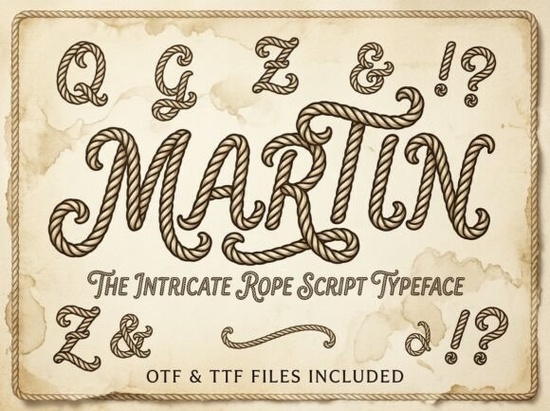
If you're looking for a display font that brings a tactile, hand-crafted feel to your designs, Martin Font stands out as a thoughtful choice. It’s not just another script each letter feels like it was carved by hand from weathered rope, giving your projects a sense of authenticity and depth. Whether you're working on coastal branding, rustic event invites, or themed apparel, Martin adds a layer of storytelling through its texture and flow.
What makes Martin Font unique?
Martin blends the rough charm of maritime life with the grace of traditional cursive writing. The twisted strokes mimic real rope, making it ideal for themes that evoke adventure, seafaring, or frontier spirit. Unlike many fonts that rely on digital polish, Martin embraces imperfections subtle variations in line weight and slight irregularities that make it feel lived-in and genuine.
It’s especially effective when used in bold headlines, logos, or packaging where you want immediate visual impact. The font works well at larger sizes, but still holds character at smaller dimensions, making it versatile across print and digital formats.
Best uses for Martin Font in real projects
- Nautical branding: Perfect for fishing charters, boat rental services, or seaside boutiques looking to convey a rugged yet refined identity.
- Seafood restaurant logos: Adds a warm, artisanal touch to menus, signage, or takeout boxes without feeling cliché.
- Rustic wedding stationery: Ideal for invitations, place cards, or thank-you notes with a western or coastal theme.
- Pirate-themed book covers or merch: Brings a believable, handcrafted look to fantasy or adventure titles.
- Beachwear labels: Great for small-batch clothing lines that value craftsmanship and story.
How does Martin fit into broader design trends?
Fonts with texture and handmade qualities are trending in design circles, especially among creators focused on sustainability, storytelling, and authenticity. Martin aligns with this shift it doesn’t just look good, it feels meaningful. It’s part of a growing movement toward designs that reflect real-world materials and human effort.
For designers exploring display fonts with personality, Martin offers a strong alternative to overly clean or generic scripts. If you’re drawn to the raw energy of handwritten elegance, or the bold attitude of wild-west-inspired typography, Martin sits comfortably in that space just with a different kind of edge: one shaped by saltwater and wind.
Design tips for getting the most out of Martin Font
To keep your design balanced, pair Martin with simple, clean typefaces. A sans-serif like Lato or Open Sans helps ground the composition. Avoid using too many decorative elements around the text let the font speak for itself.
When printing, use high-quality paper stock. The texture of the font shines best on matte or textured finishes. For digital use, test how it renders on screens especially mobile devices since subtle details can blur at small sizes.
You might also consider using it in layered effects, such as a slightly offset shadow or a soft drop shadow, to enhance the illusion of depth and materiality. But keep it subtle; over-processing can erase the handmade quality that makes Martin special.